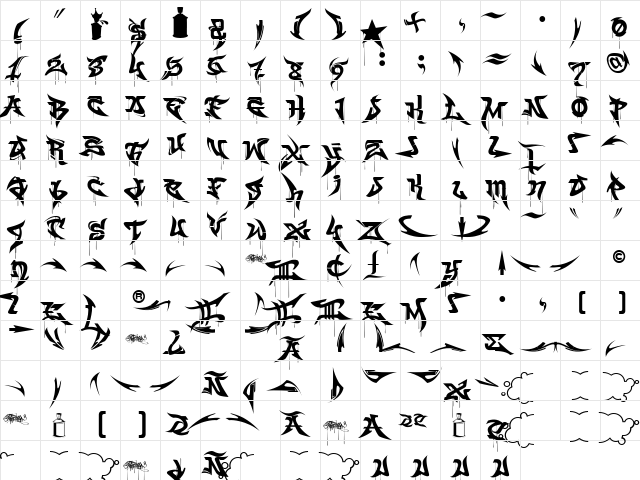
WildStyle-Drip Regular
Design Context for WildStyle-Drip Typeface
WildStyle-Drip is a composed and adaptable typeface that performs quietly and consistently across a wide range of design contexts.